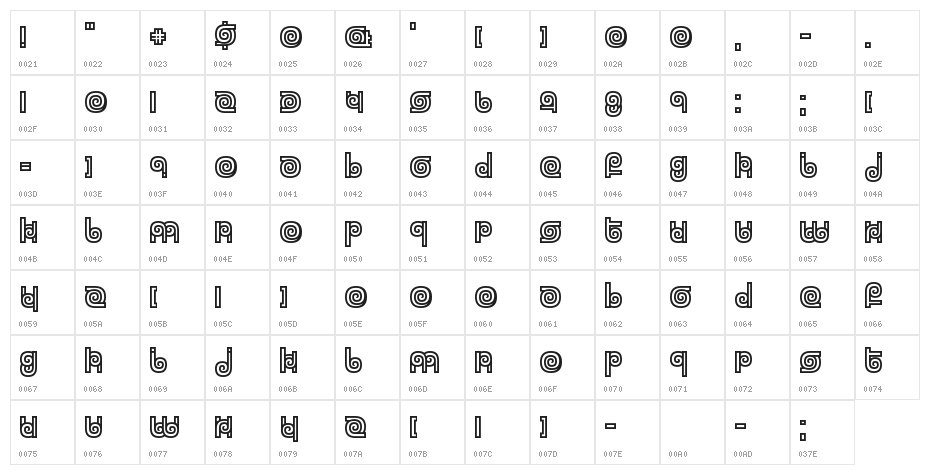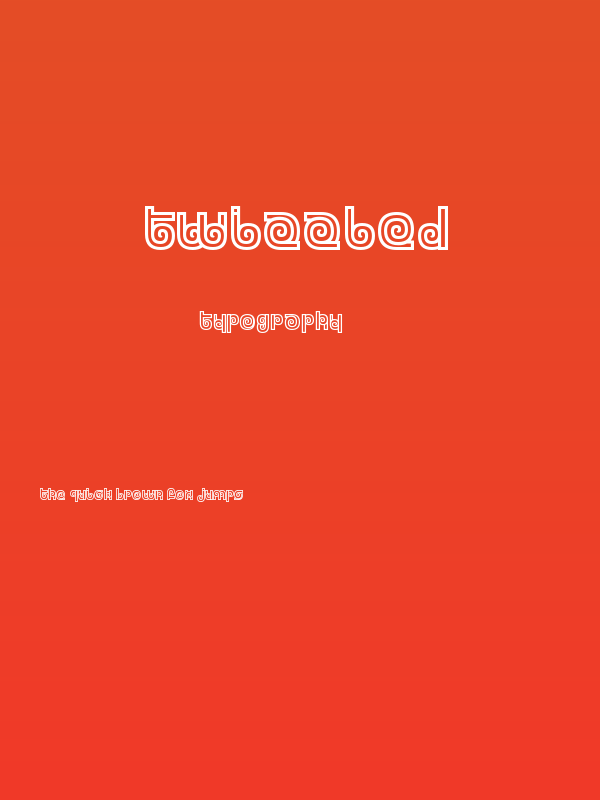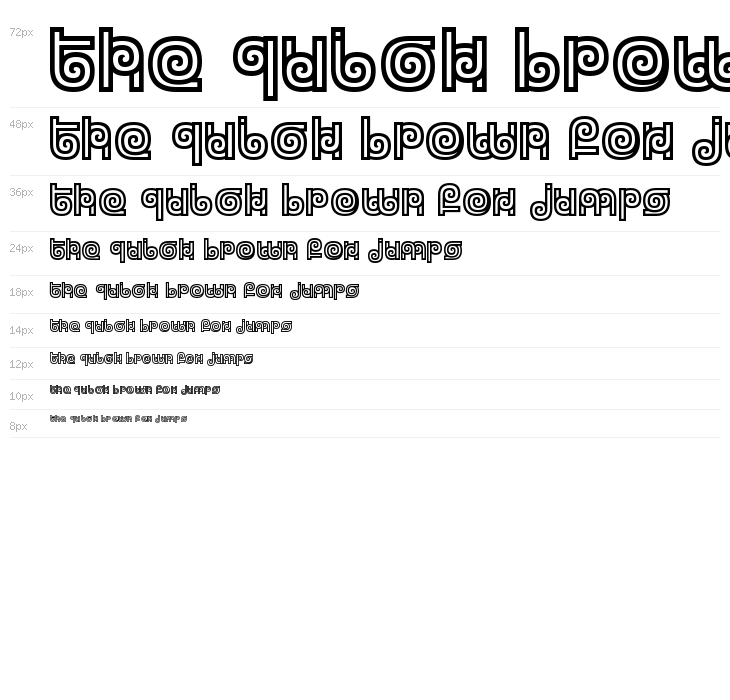
Twizzled Font
Twizzled Description
This font is a playful and whimsical typeface characterized by its bold, outlined letters with a unique spiral or twirl design within each character. The strokes are consistent in width, giving it a uniform appearance, while the intricate inner patterns add a decorative flair. The uppercase and lowercase letters maintain this distinctive style, making it eye-catching and suitable for creative projects. The numbers and special characters follow the same design principles, ensuring a cohesive look across all glyphs. Its boldness and decorative elements make it ideal for projects that require a fun and engaging visual impact.
| Proposed Projects | Ideal for children's book covers, playful posters, party invitations, and creative branding. |